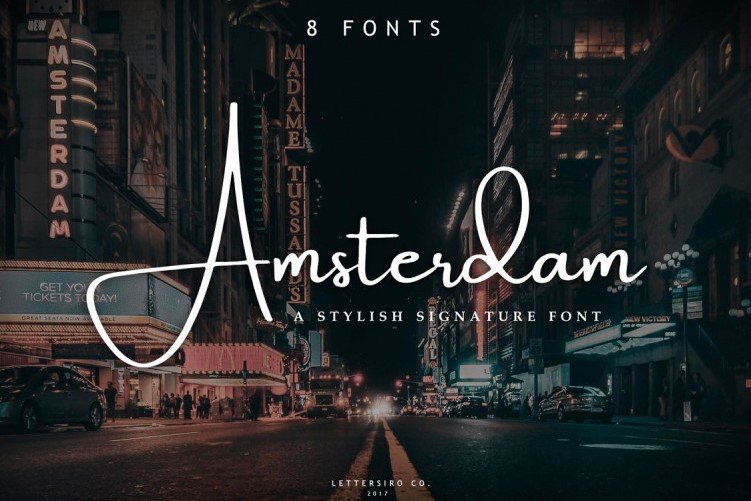
Hello graphic designer, if you are working on a project that requires a handwritten font, then the Amsterdam Signature Font is perfect for you. It was introduced by Lettersiro, who has made this font available for free for both commercial and personal projects. This is a simple classical scripted typeface that offers 8 different variations and comes with OpenType features.
The font contains top-notch characters and letterforms that is suitable for creating photographic, cards, quotes, album and other things you can design easily for all display screen sizes. The font is best for a combination typeface that can be utilized with serpentine font for creating more smart fonts.
View Of Amsterdam Signature Font
Now, the time is came to view the sample the of great typeface. Below, we shared an image that contains the glyphs and characters of this amazing font which creates best designs in Adobe photoshop and Adobe Illustrator.
The font was designed by developed for High Resolution or HD images. You can creates large project with this typeface.
The font contains best scripted texture that may be used as the secondary typeface with the combination of alcubierre font which has a popular texture so that can also be used in pairing also.
| Name | Amsterdam Signature Font |
| Style | Signature |
| Designer | Lettersiro. |
What Type of Font Is Amsterdam Signature?
The Amsterdam Signature Font is the famous and amazing typeface which was product of the combination efforts by Lettersiro.